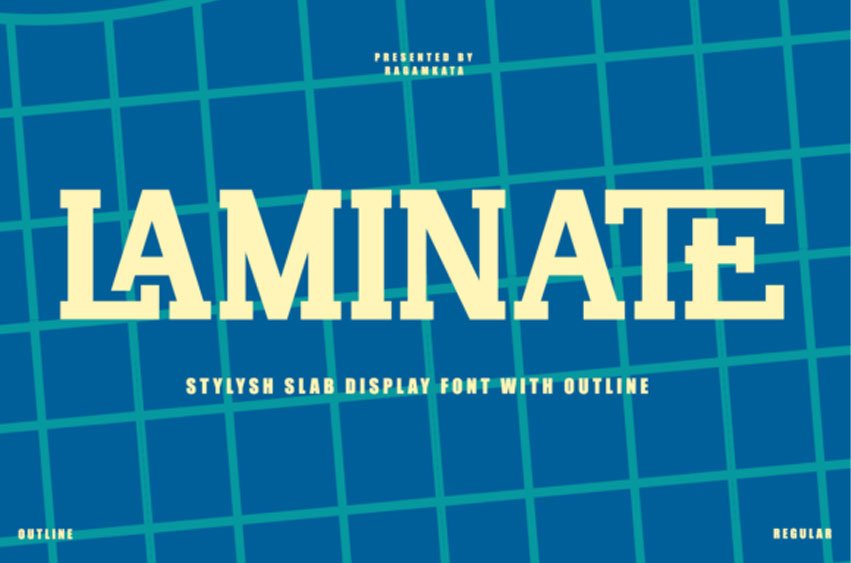
Laminate Font is a stylish display font inspired by pop design posters from the 1980s and 1990s.
It is perfect for titles, posters, logotypes, merchandise, flyers, packaging, and more.